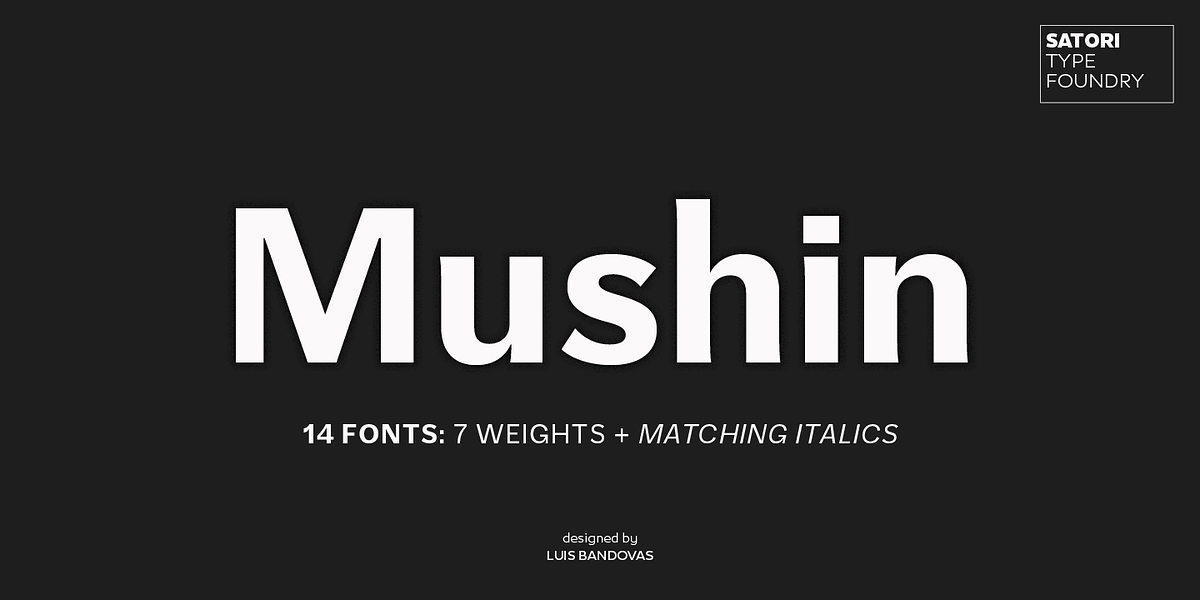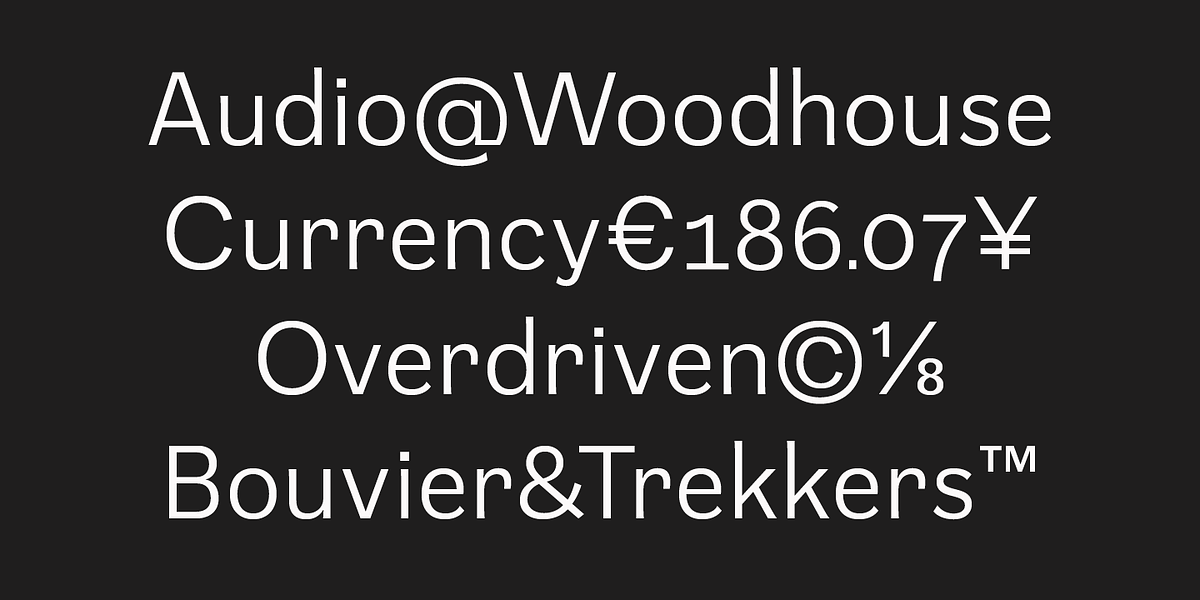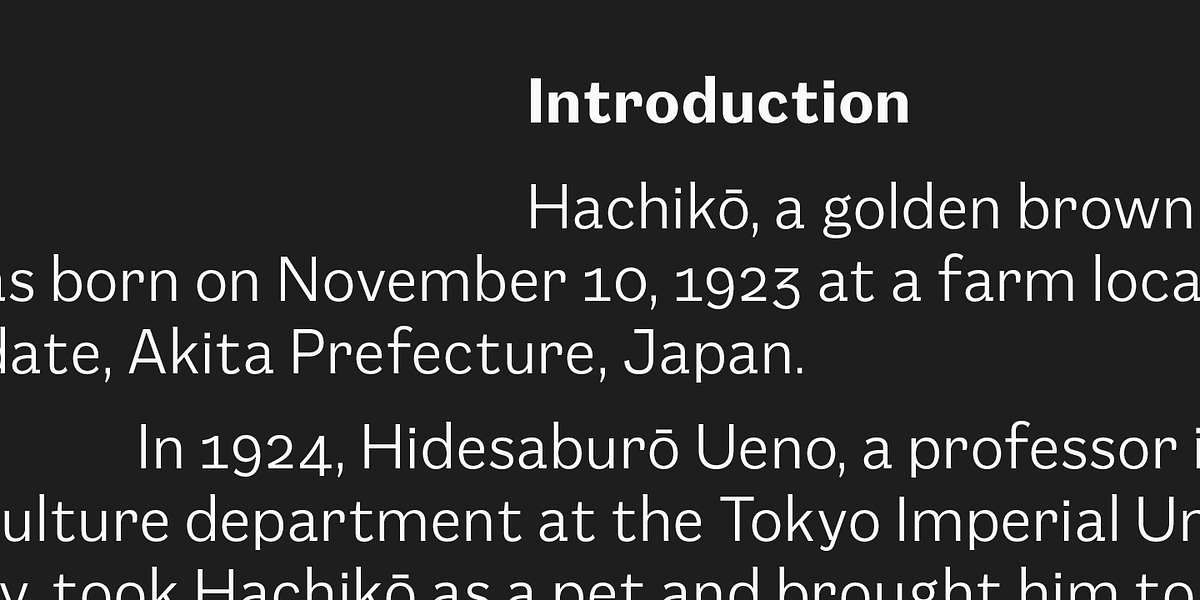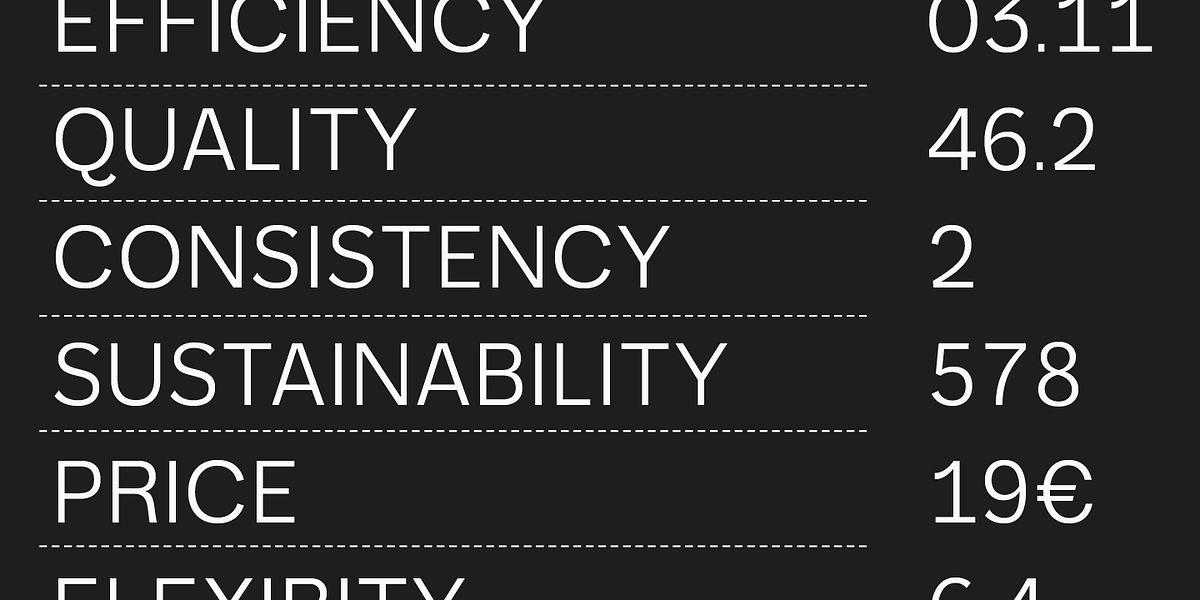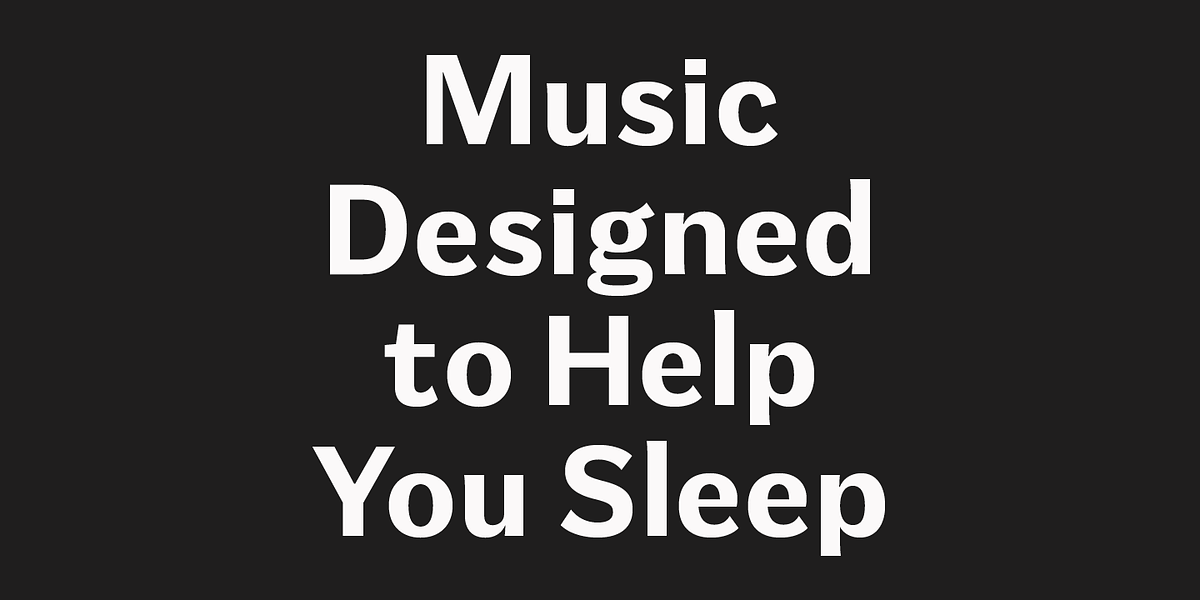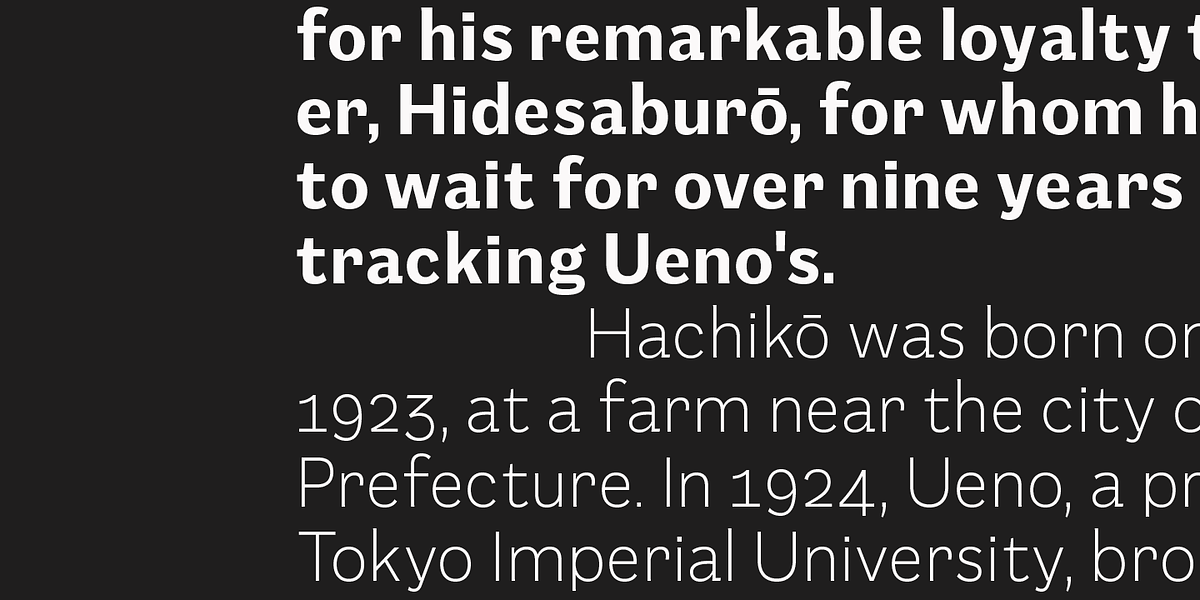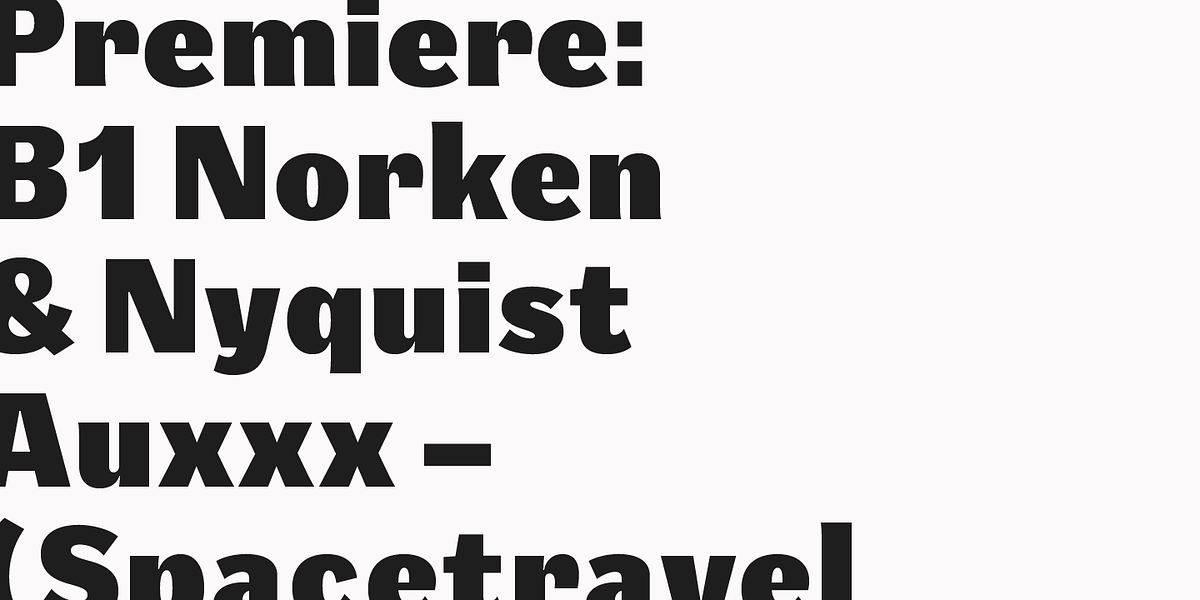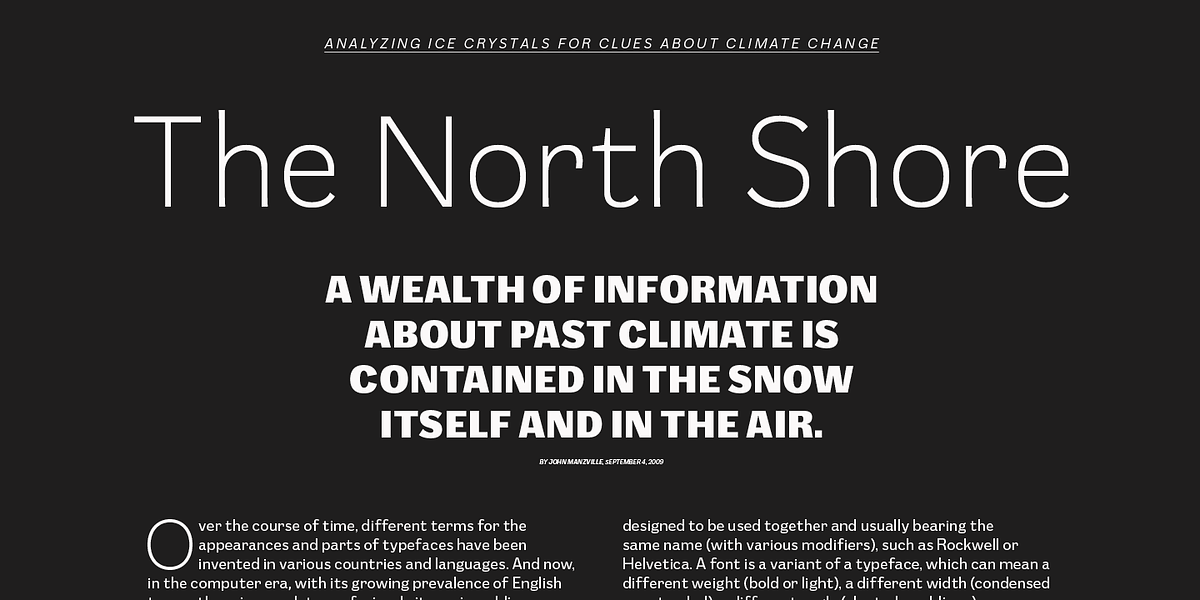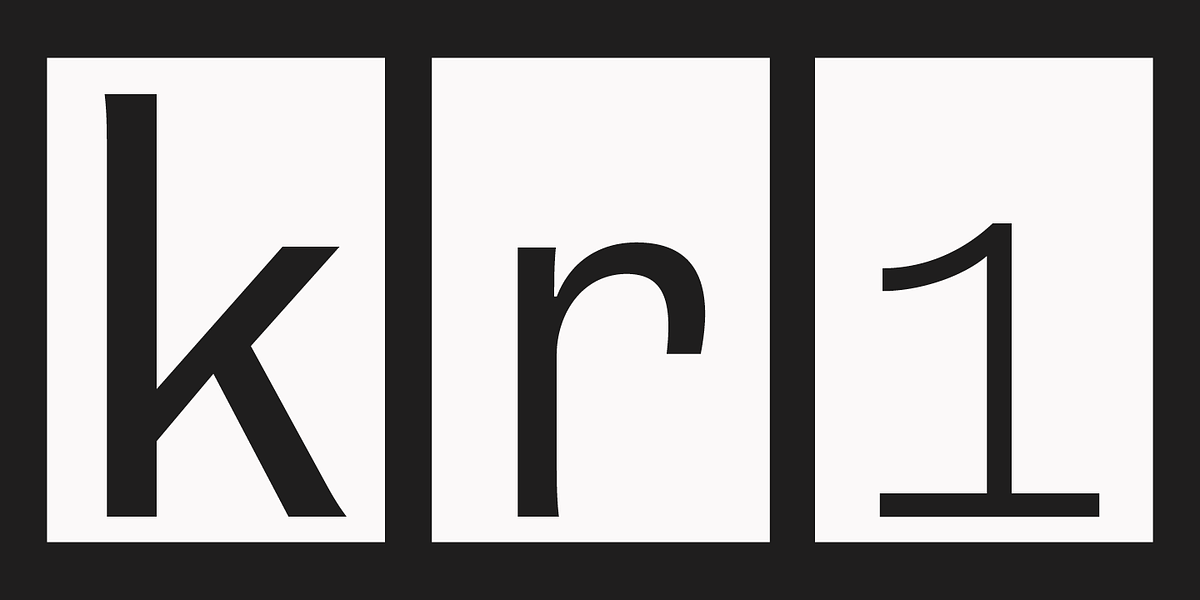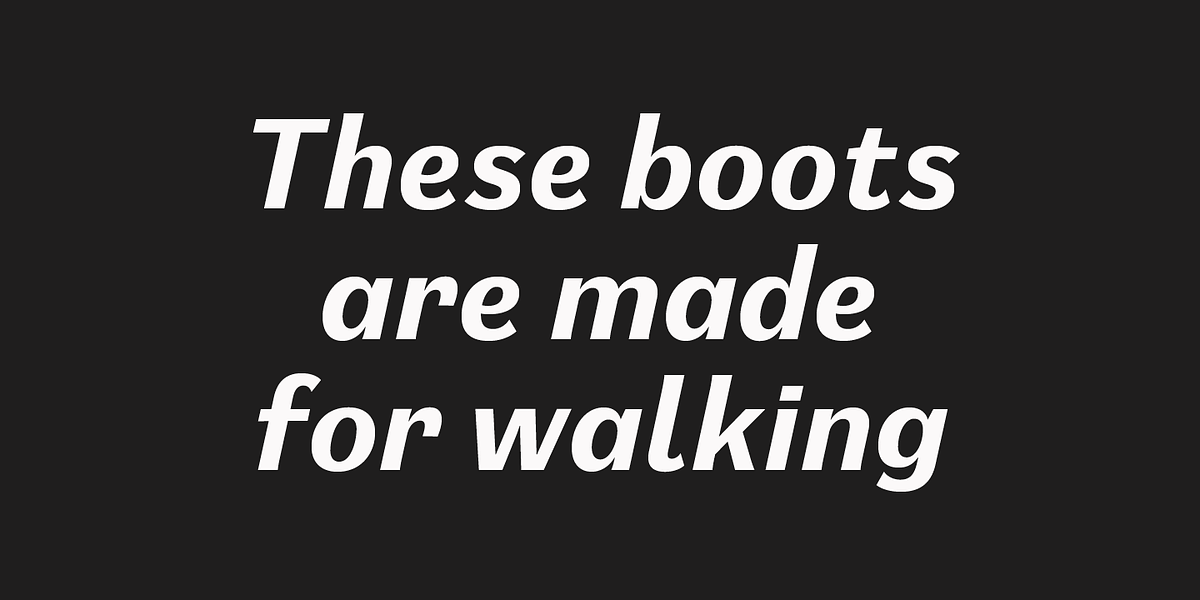
Mushin
Mushin is a sans serif typeface inspired by early 20th-century grotesques. While retaining the core characteristics of this style, Mushin softens the often cold aesthetic with humanistic details and endings. This results in a typeface that is both modern and approachable, suitable for a variety of applications.